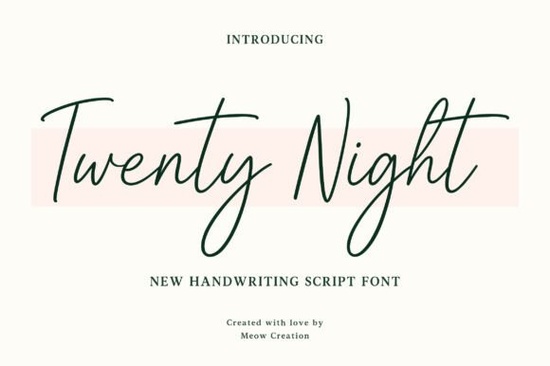
If you're looking for a modern handwritten script font that feels personal but still polished, Twenty Night Font is a quiet standout. It’s not overly decorative or fussy just clean, fluid, and naturally balanced. The thin strokes and gentle curves give it the relaxed rhythm of real handwriting, without sacrificing legibility or versatility. Whether you’re designing wedding stationery, branding a small business, or creating social media graphics, this font slips in smoothly without demanding attention for the wrong reasons.
What kind of projects does Twenty Night work best for?
Because it’s designed with both elegance and practicality in mind, Twenty Night fits comfortably across several common use cases:
- Wedding invitations and day-of signage its soft flow pairs well with minimalist or romantic themes
- Small business logos and brand assets especially for boutiques, bakeries, wellness studios, or handmade goods
- Social media posts and stories works well at smaller sizes while keeping warmth and personality
- Packaging and product labels subtle enough to complement photography or illustrations, not compete with them
- Print-on-demand designs clean vector outlines mean crisp results on mugs, tote bags, and greeting cards
It’s also a good match if you want something softer than bold display fonts but more intentional than generic free scripts. Think of it as the kind of font you’d reach for when you want your design to feel thoughtful, not just pretty.
How does it compare to other popular script fonts?
Unlike some high-contrast scripts that rely on dramatic thick-thin variation, Twenty Night keeps things even and approachable. That makes it easier to pair with sans-serif or serif companions no awkward visual tension. If you’ve used Amor Note Font, you’ll notice Twenty Night has a slightly more neutral tone: less romantic flourish, more everyday grace. Compared to Relationship Font, it’s less playful and more refined better suited to mature branding than whimsical quotes.
For designers who like variety in their toolkit, Reaches Font offers bolder energy, while The Sunnyside Font leans into vintage charm. Twenty Night sits somewhere in the middle: contemporary, calm, and quietly confident.
Is it easy to use for beginners?
Yes especially if you’re working in Canva, Adobe Illustrator, or Procreate. It includes standard OpenType features (like ligatures and alternate characters), but you don’t need to activate them to get great results. Most users find it works well right out of the box, even without deep font knowledge. Just type, adjust spacing if needed, and go. No special software or training required.
One thing to keep in mind: because of its thin strokes, it’s best used at medium to larger sizes for print, and with enough contrast against the background especially on digital screens. For tiny text (like fine print on packaging), pairing it with a simple sans-serif for readability is a smart move.
A quick checklist before using Twenty Night Font
- ✅ Test it at your intended size especially for print or embroidery
- ✅ Check contrast against your background (light gray text on white won’t hold up)
- ✅ Pair it with one neutral companion font (e.g., Montserrat, Lora, or Inter) for body text or captions
- ✅ Avoid overusing swashes or alternates unless they support your message not distract from it
If you’re building a consistent brand look or curating a collection of go-to fonts for client work, Twenty Night is a low-risk, high-flexibility choice. It doesn’t shout but it stays memorable.